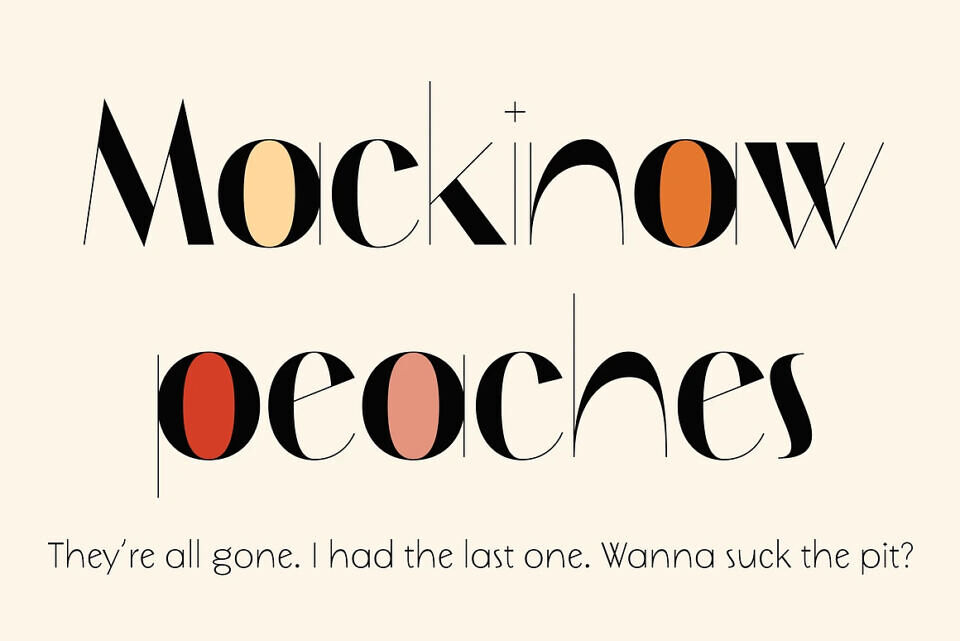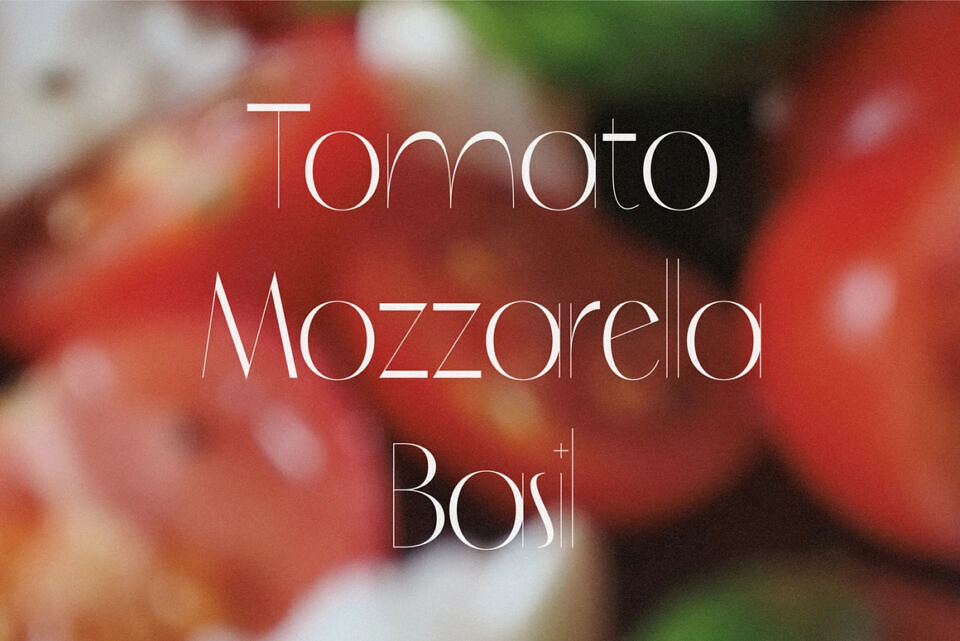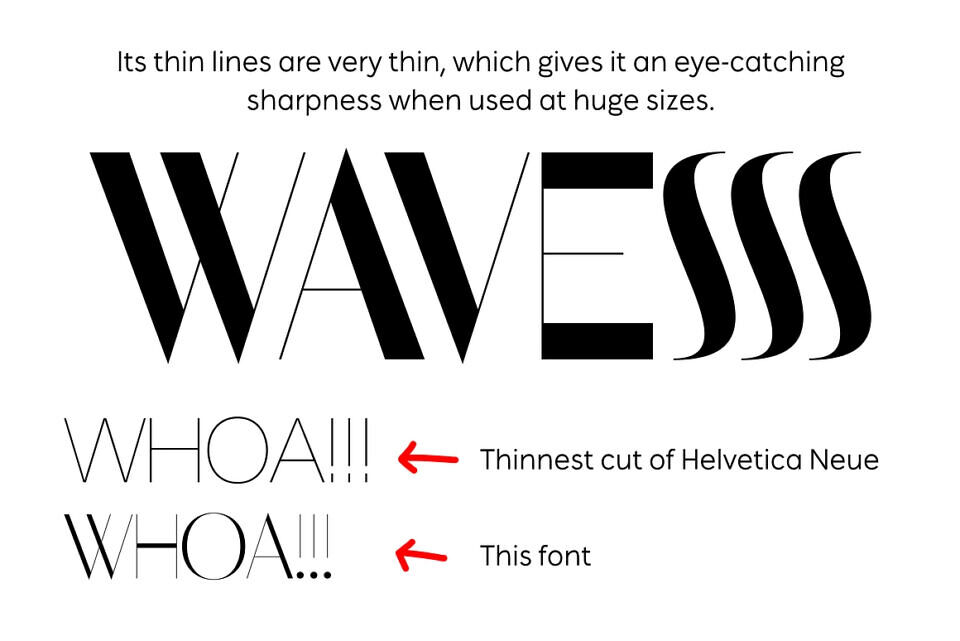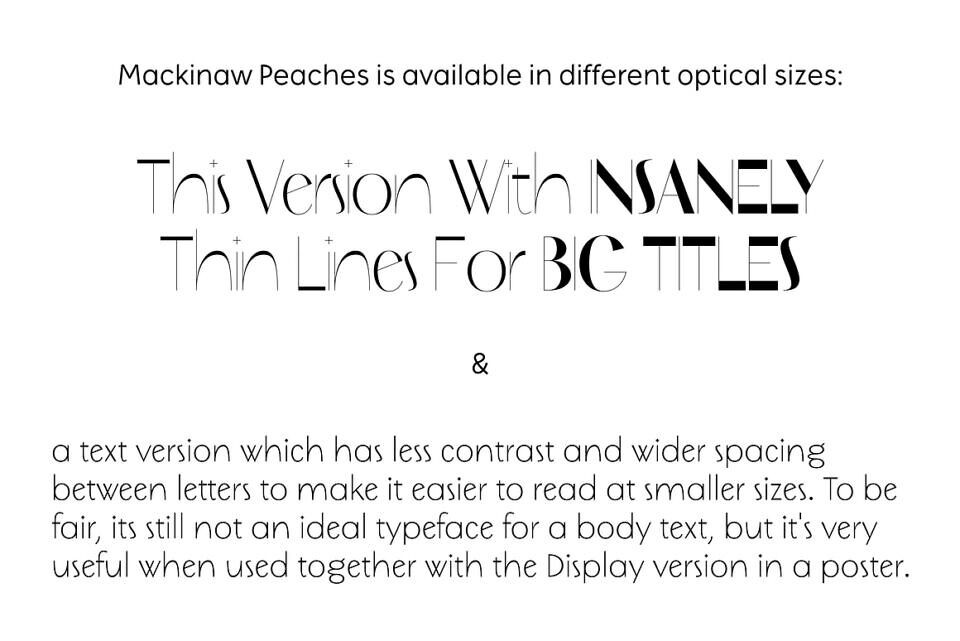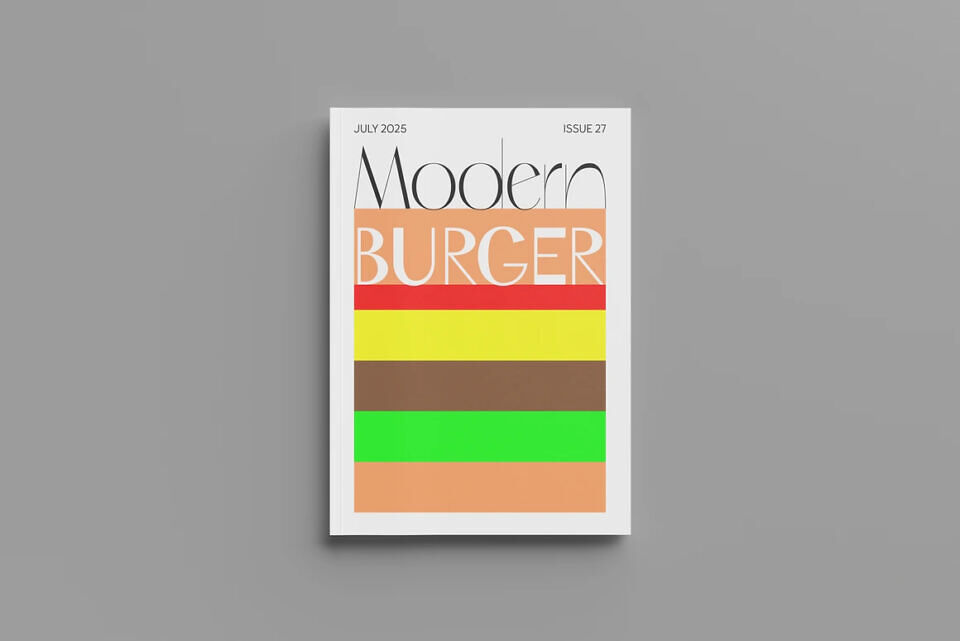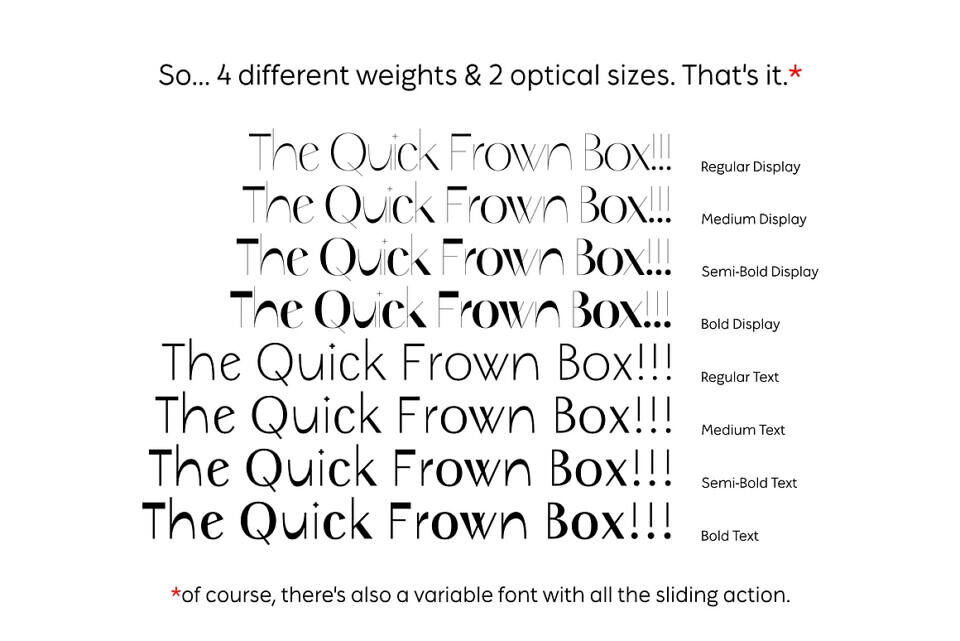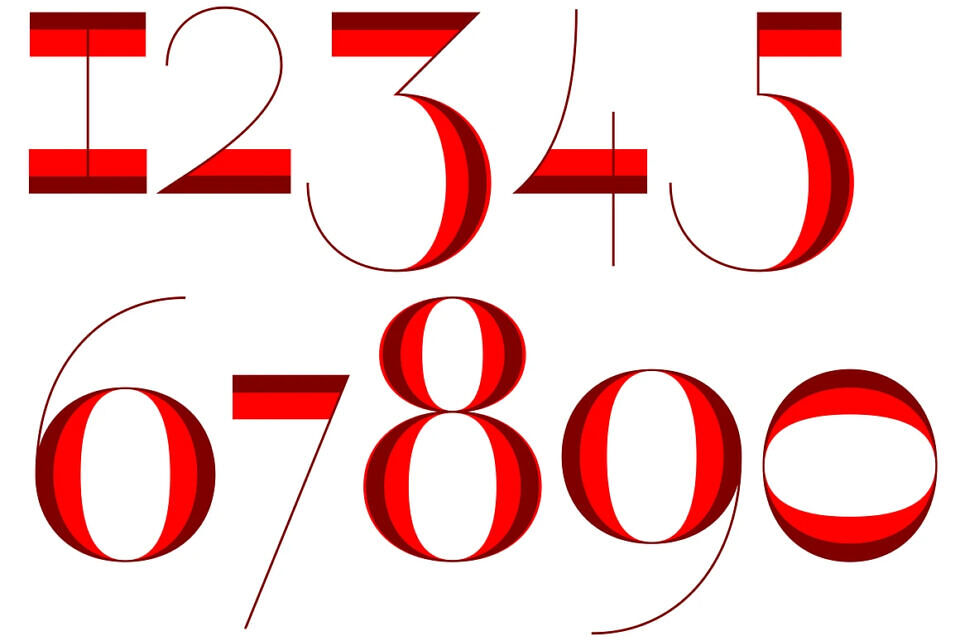
Mackinaw Peaches is a striking and elegant high-contrast display sans-serif font. Its exceptionally thin hairlines create a sharp, eye-catching look, making it perfect for large, impactful headlines and display use.
The font family includes two optical sizes: a high-contrast “Display” version and a “Text” version with wider spacing for better readability at smaller sizes. With four weights—Regular, Medium, Semi-Bold, and Bold—and a variable font option for ultimate flexibility, Mackinaw Peaches offers a versatile and modern choice for projects like posters and magazines.